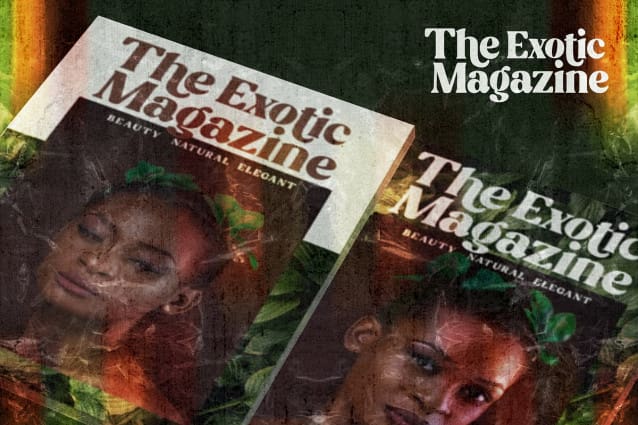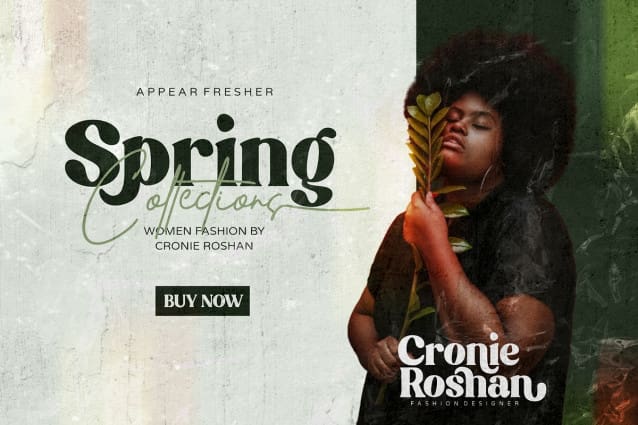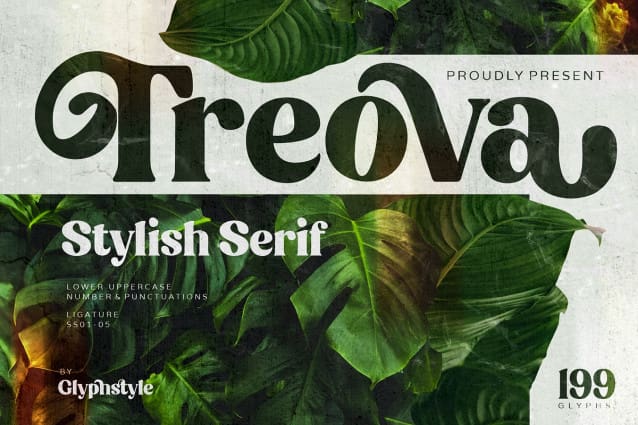
Treova Font
Treova Font is a decorative display serif font, looks stylish. The stiff serif shape becomes fluid with the right combination of curves. There are several stylish character choices in Ss01-05
Treova is perfect for branding projects, logos, wedding designs, social media posts, advertisements, product packaging, product designs, labels, photography, watermarks, invitations, stationery, and any project that requires a sense of serif decorative font.